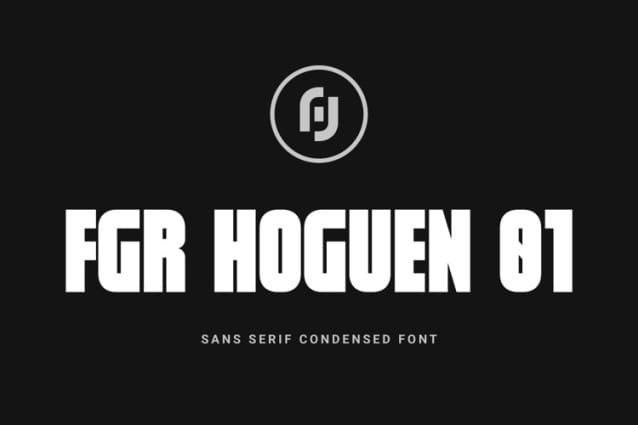
Fgr Hoguen 01 Font
Fgr Hoguen 01 Font is a condensed Sans Serif font, making a bold statement with our latest sans-serif font. With clean lines and a modern appeal, this font is sure to grab attention and leave a lasting impression. Perfect for headlines, logos and any design that demands attention. It is both functional and stylish, making it a versatile choice for a variety of design projects.